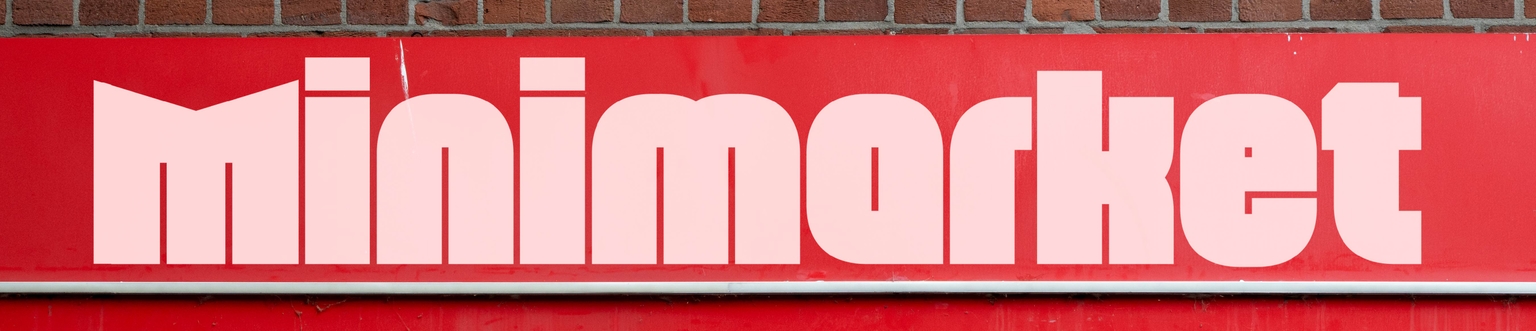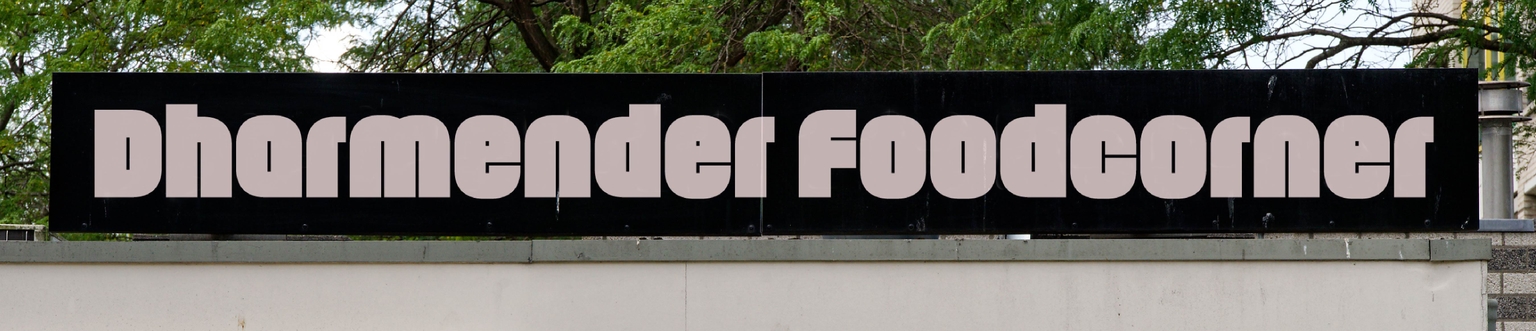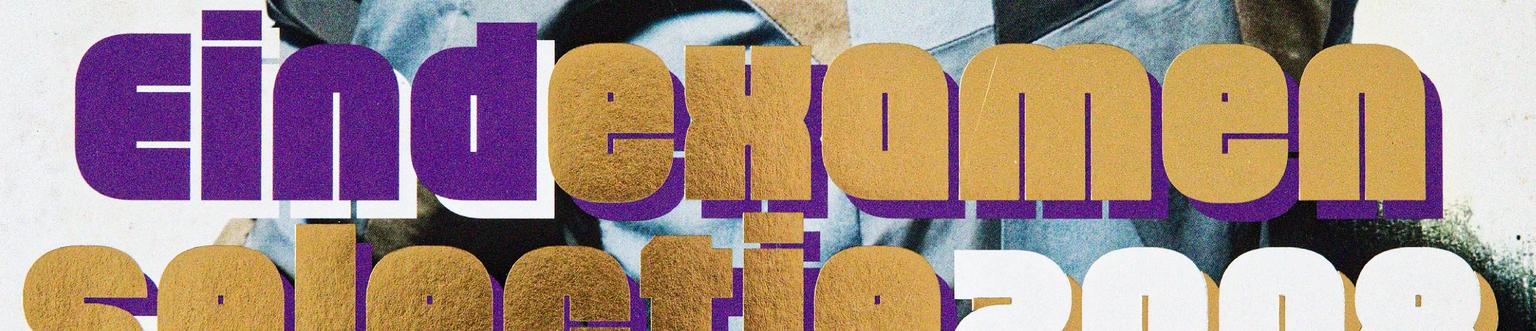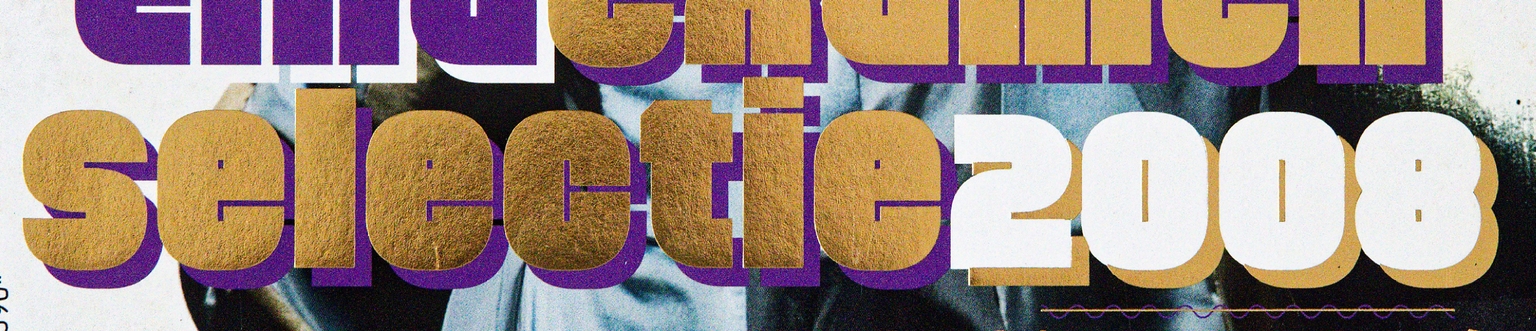
Lasagna
Lasagna is a heavy, geometric display typeface designed by Brazilian designer and fine artist Yomar Augusto. Originally released through Retype in 2008, it now returns in a new edition through Brutal Types, bringing fresh attention to its striking blend of structure and spontaneity. With its rational construction, modular shapes, and playful look, Lasagna reflects Augusto’s background in street art, printmaking, and graphic experimentation.
The name of the typeface was chosen during a dinner at a Rotterdam restaurant with Ramiro Espinoza, where—fittingly—lasagna was eaten.
Lasagna’s forms are rooted in geometry but infused with the tactile, human touch that runs through all of Augusto’s work. Designed for large-scale use, it thrives in posters, book covers, visual identities, and cultural projects where bold typographic presence is key.